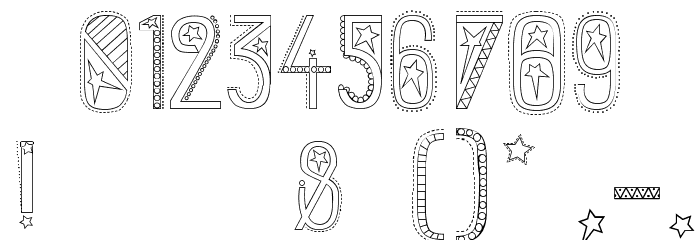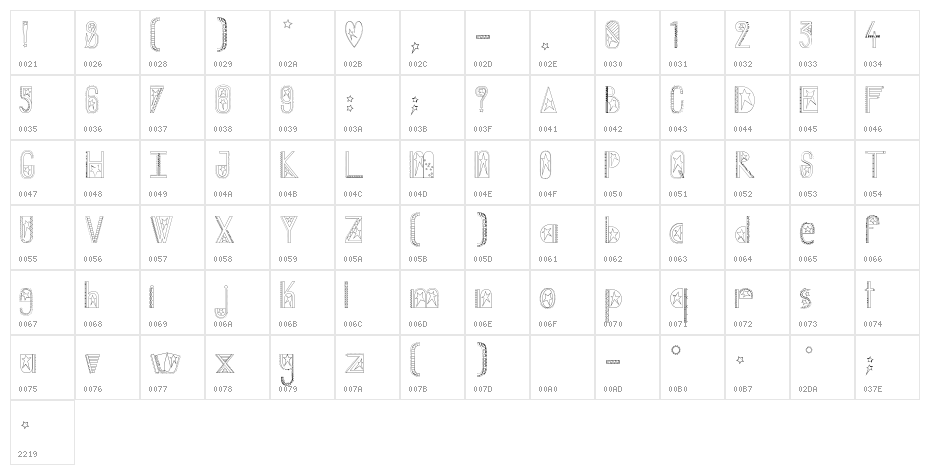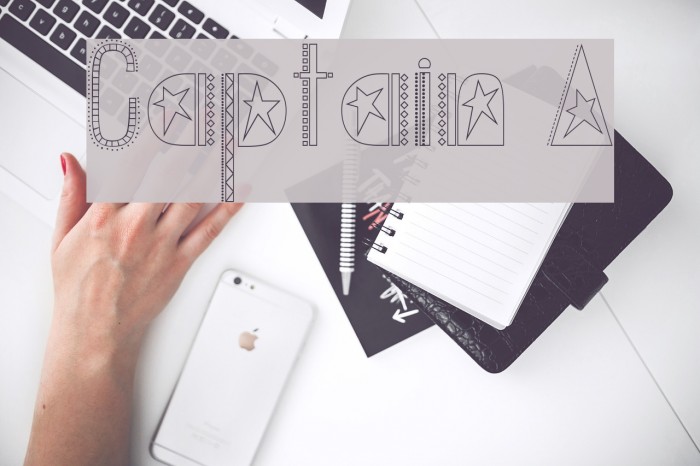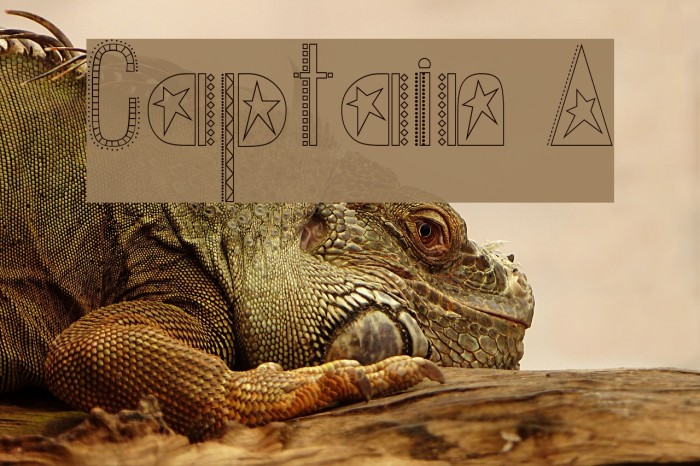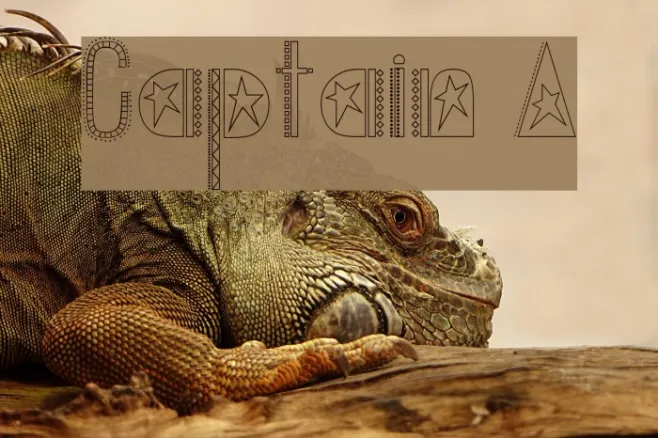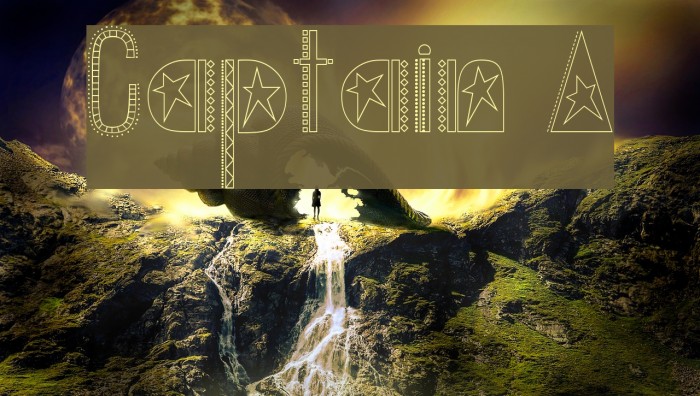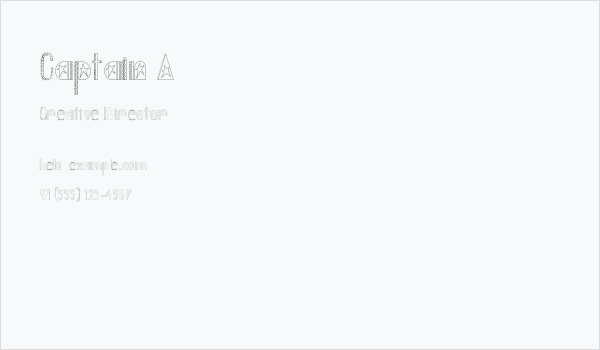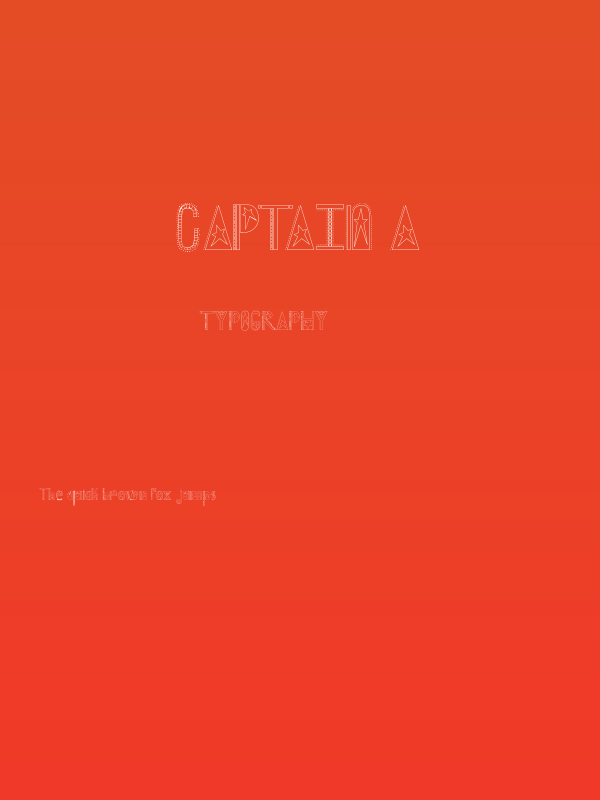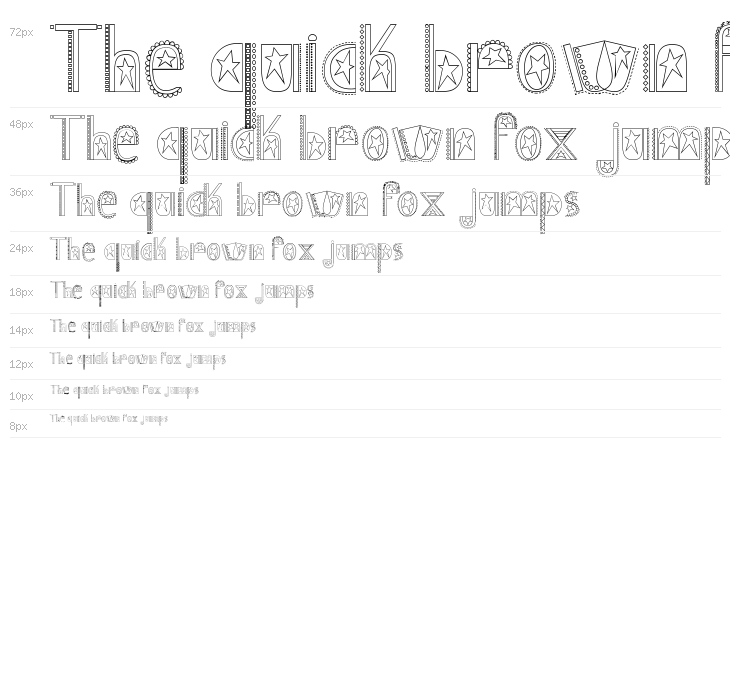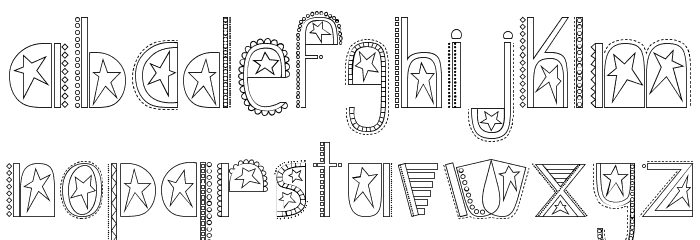
Captain A Font
Captain A Description
This decorative font features a playful and whimsical design, incorporating stars and dotted patterns within each character. The uppercase and lowercase letters are adorned with unique embellishments, such as stars and dotted outlines, giving them a festive and dynamic appearance. The numbers and special characters follow the same theme, maintaining consistency throughout the set. This font's intricate details and creative flair make it stand out, capturing attention with its bold and artistic style.
| Proposed Projects | Ideal for children's book covers, party invitations, festive banners, and playful branding projects. |